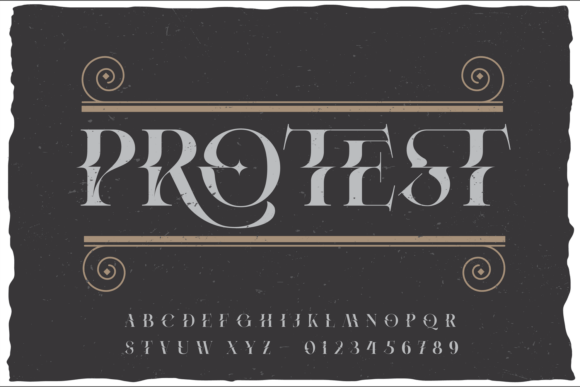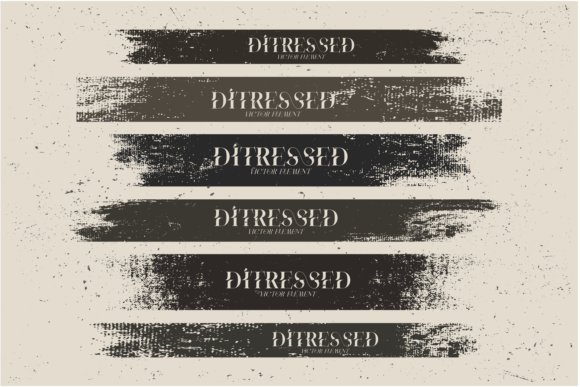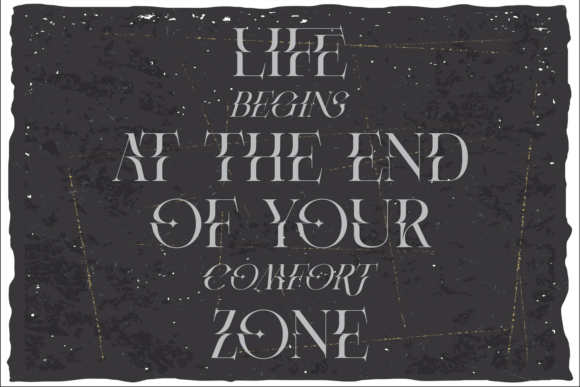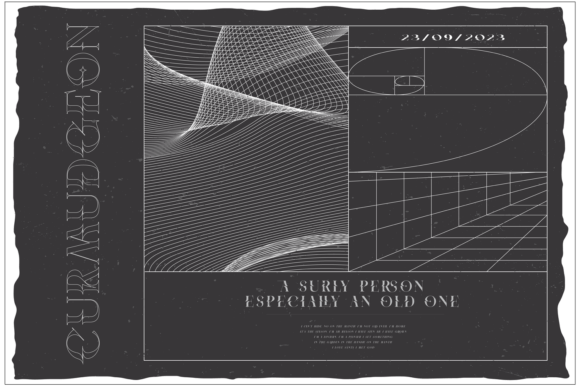
Protest Font
About the Protest Font
The Protest Font is here to transform your projects with its distinctive character and style. Protest is a modern and stylish serif font. No matter the topic, this font will be an incredible asset to your fonts’ library, as it has the potential to elevate any creation.
Protest’s strong serifs and confident letterforms make it ideal for headlines, branding projects requiring a bold statement, and posters where impact is key. It also works well for short-form text in packaging design or short impactful quotes. However, its assertive style is less suitable for body text or long paragraphs, where readability would suffer. Avoid using it for user interfaces (UI) or applications requiring high legibility at smaller sizes.
Pairing Protest effectively depends on the desired effect. For a sophisticated contrast, consider pairing it with a clean sans-serif like Open Sans or Lato. If a more playful feel is needed, a rounded sans-serif such as Poppins might work well. For a more rebellious edge, a geometric sans-serif could create an interesting tension.
Protest’s overall personality is bold and assertive, conveying a sense of strength and confidence. It’s perfect for brands projecting power, innovation, or a rebellious spirit.
Protest Font Usage Examples
Protest Font Example